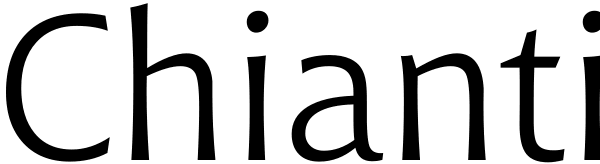
Chianti BT
Chianti was designed at Bitstream by senior designer Dennis Pasternak in 1991 and initially released in 1995. The intent behind the design was to provide a humanist sanserif of high readability at a wide range of sizes and weights. Humanist...